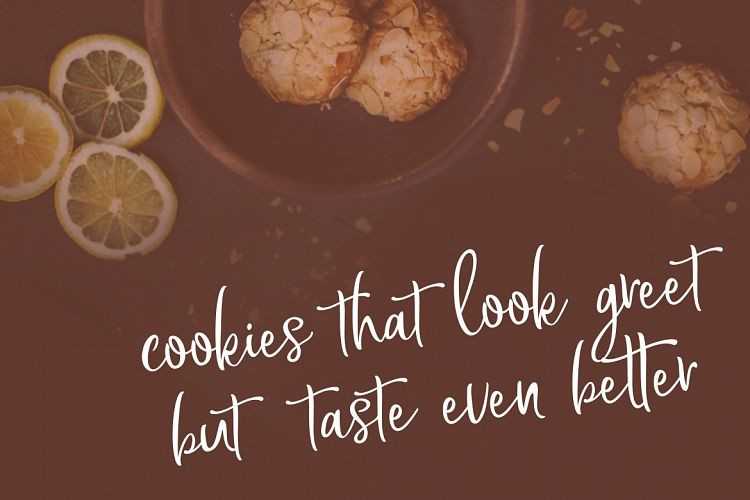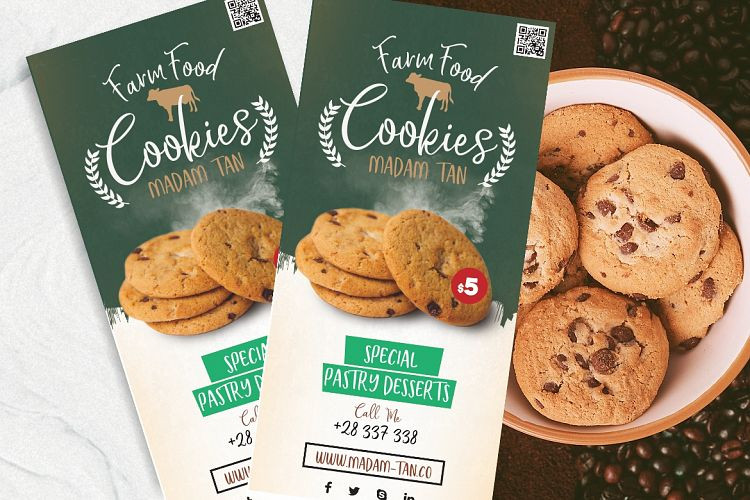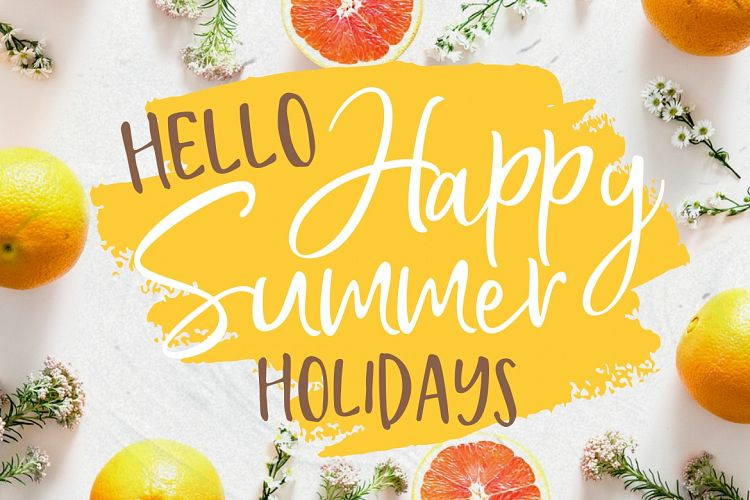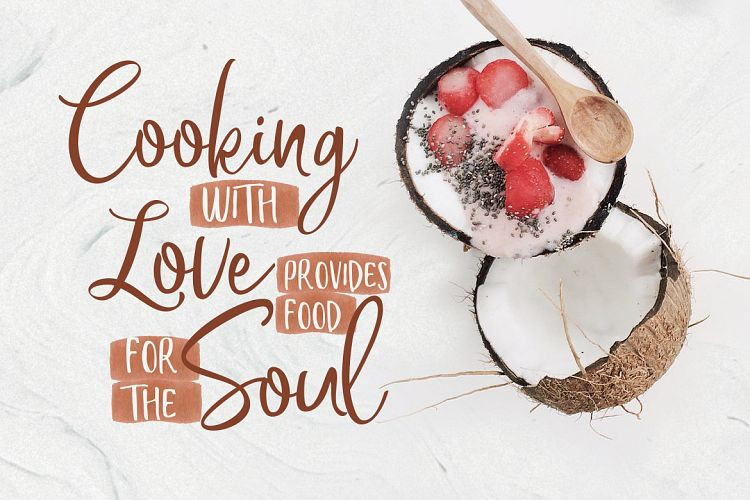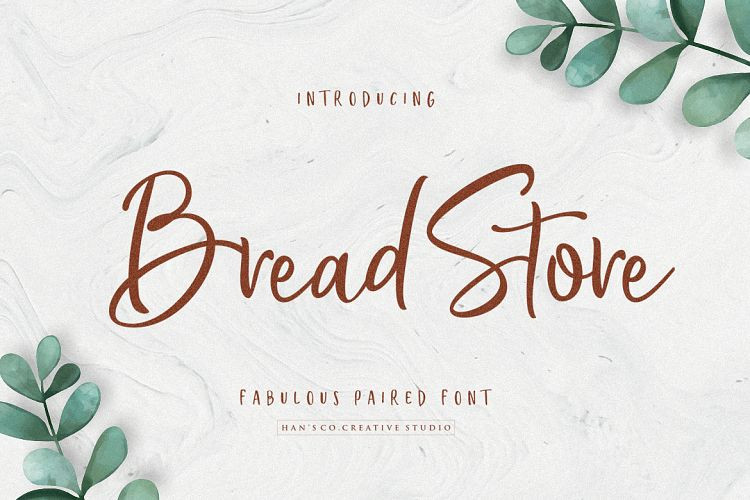
Bread Store Script Font
Say hello to the Bread Store Font! This is a modern Hand lettering. It is slender, feminine and classy, while still maintaining a friendly feel! It is designed and shared by Han’sCo. It’s an fun script font duos designed with curly and comical style. It perfectly represents rustic in clean lines and modern way. Bread Store Script will make perfectly for elegant logo design, packaging or invitation cards. It also works wonderfully on its own for quotes, and more!